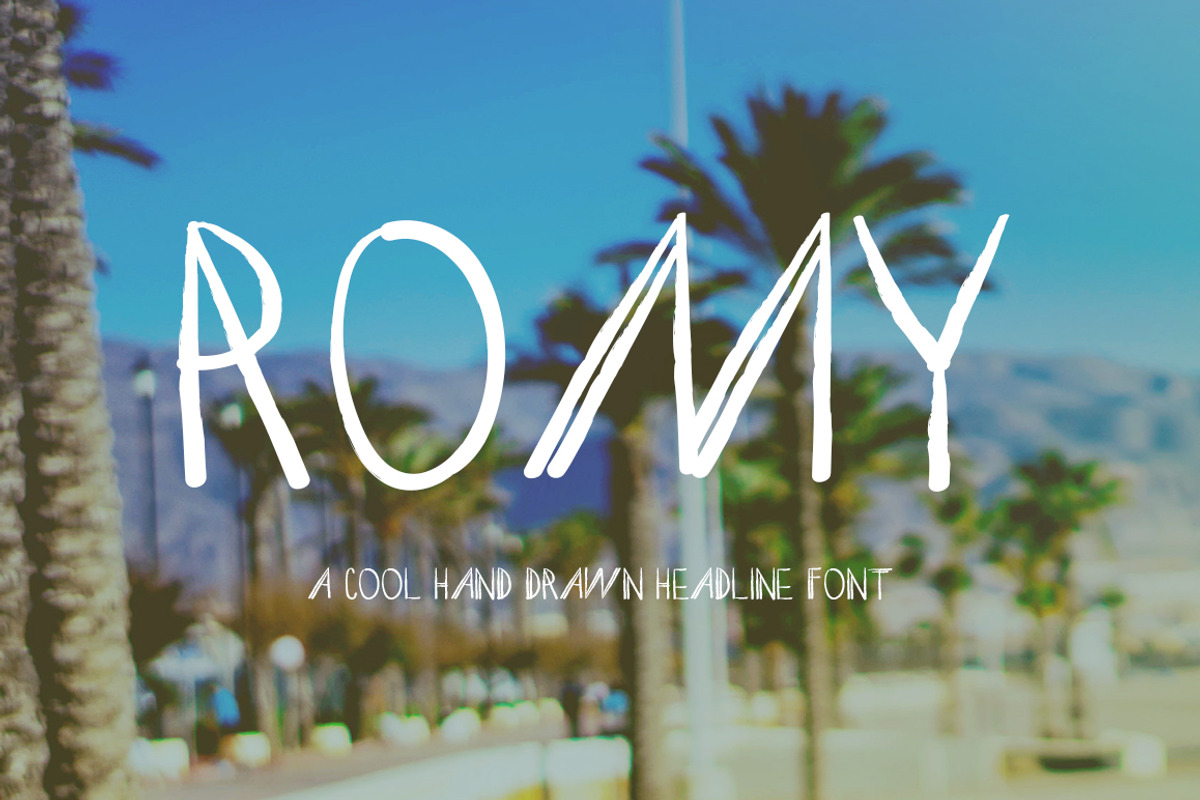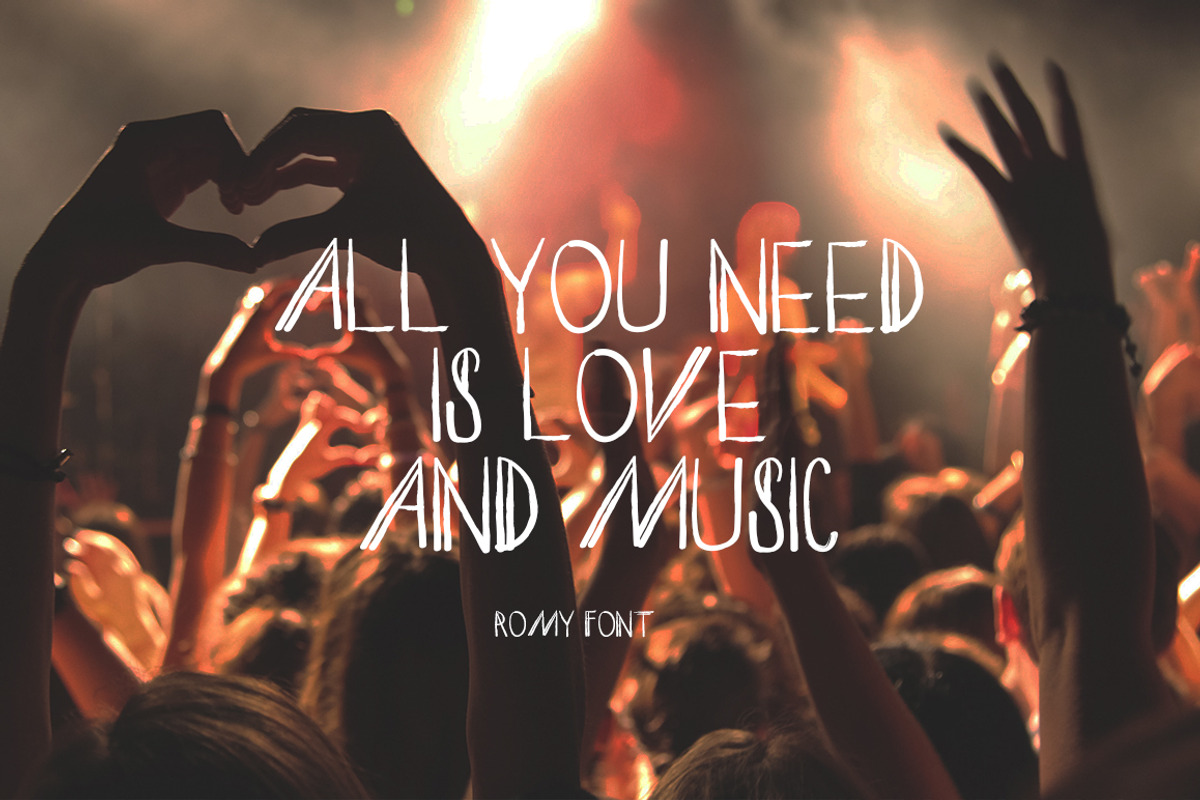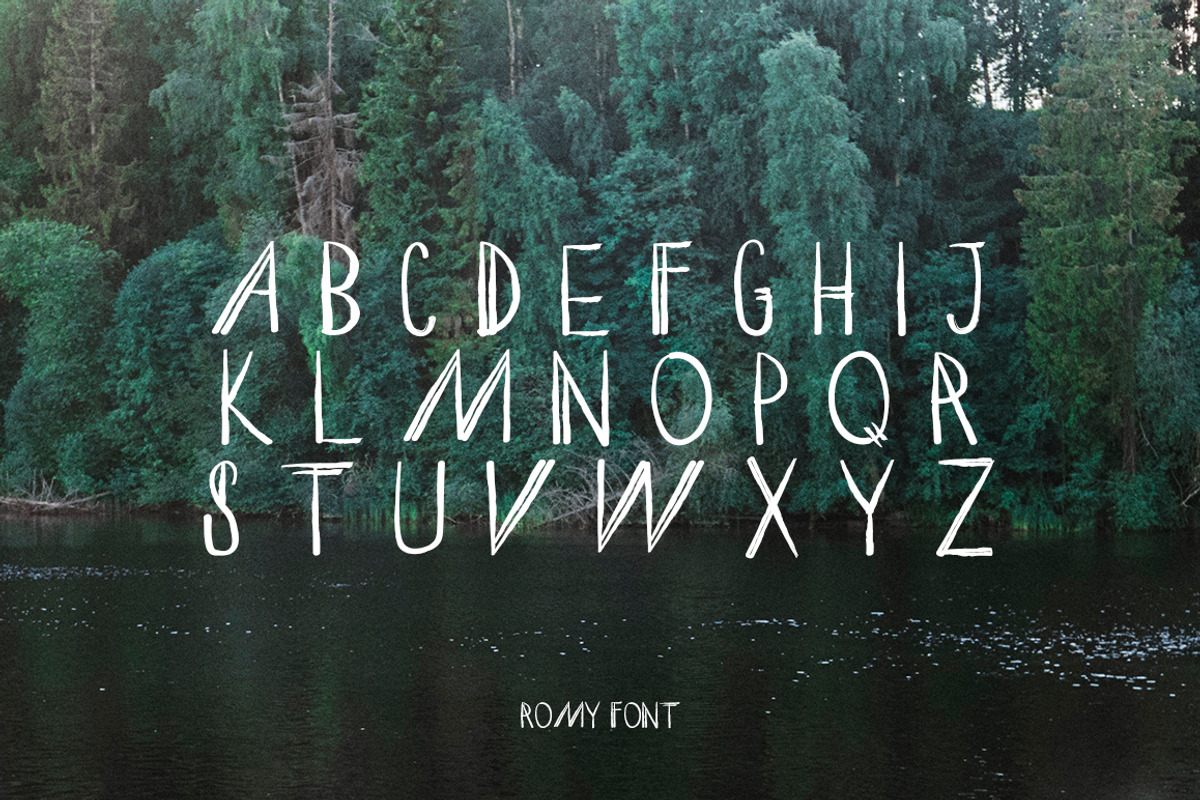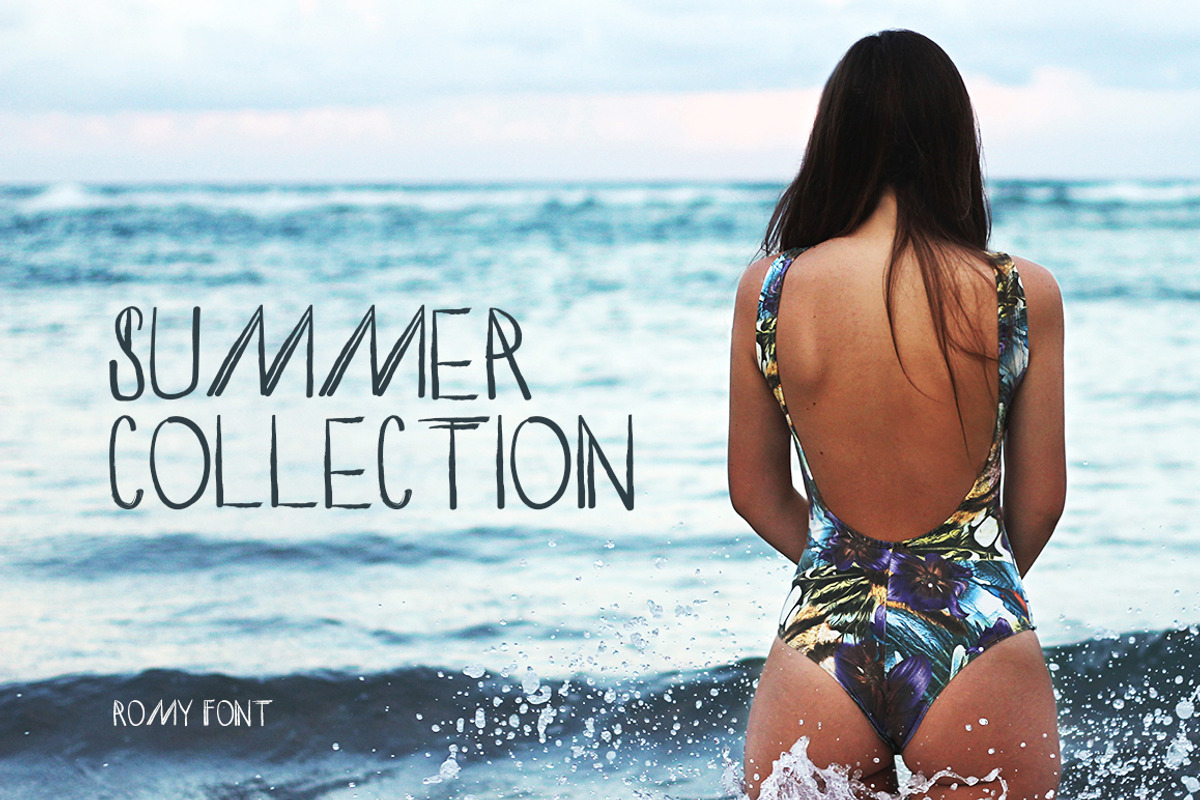
ROMY Headline Font
ROMY Headline Font by Studio Fawn is a font selected for branding, posters, packaging, typography.
- An uppercase font, ROMY works great in large scale to show off her subtle quirks whilst also useable and legible at a smaller size.
ROMY Headline Font by Studio Fawn fits naturally into Branding, posters, packaging, typography.